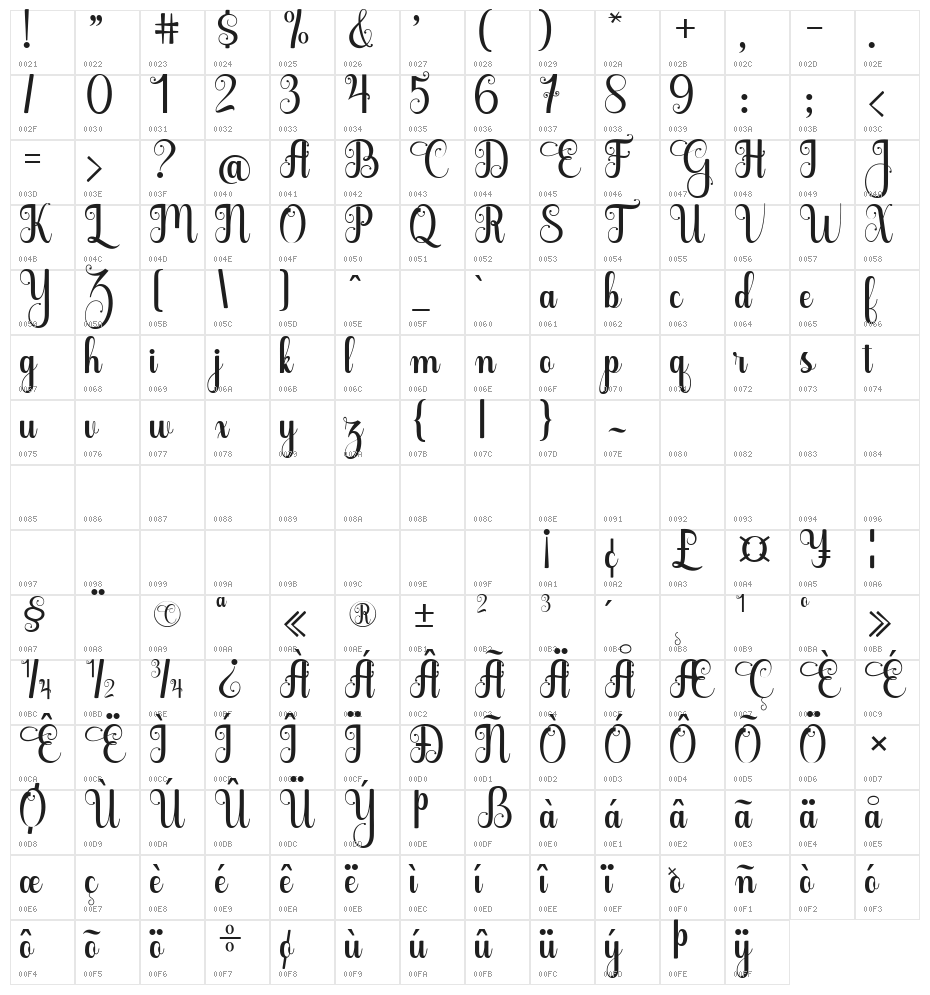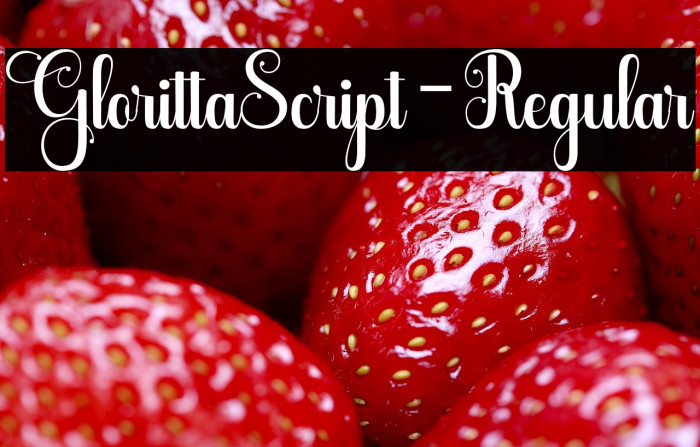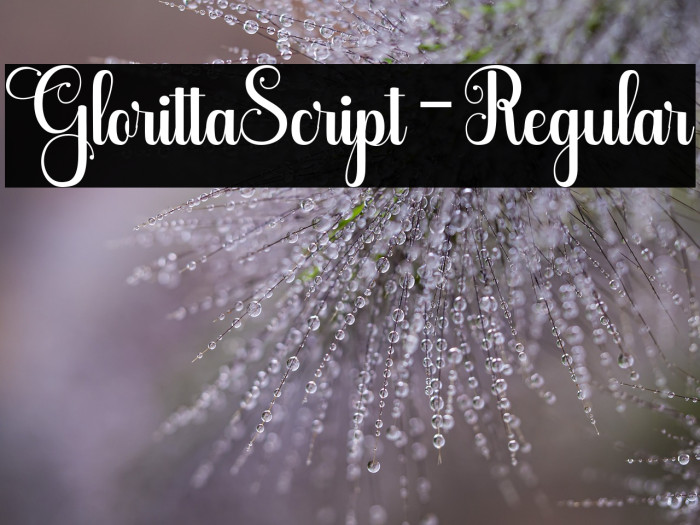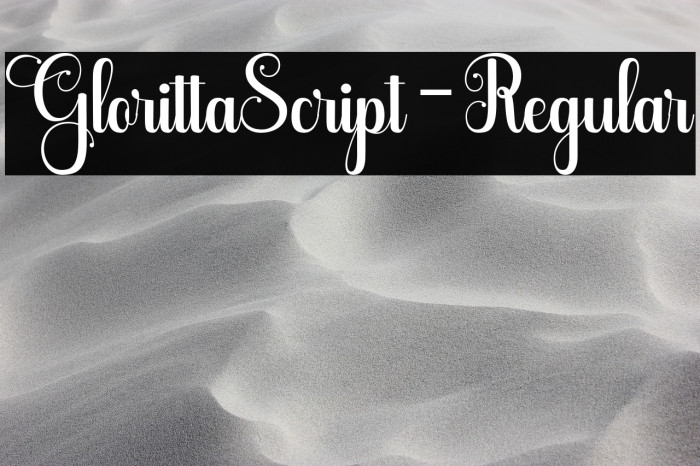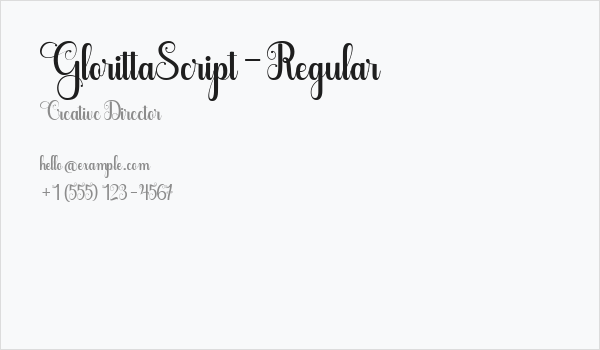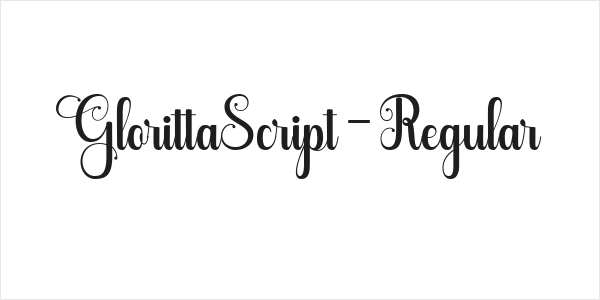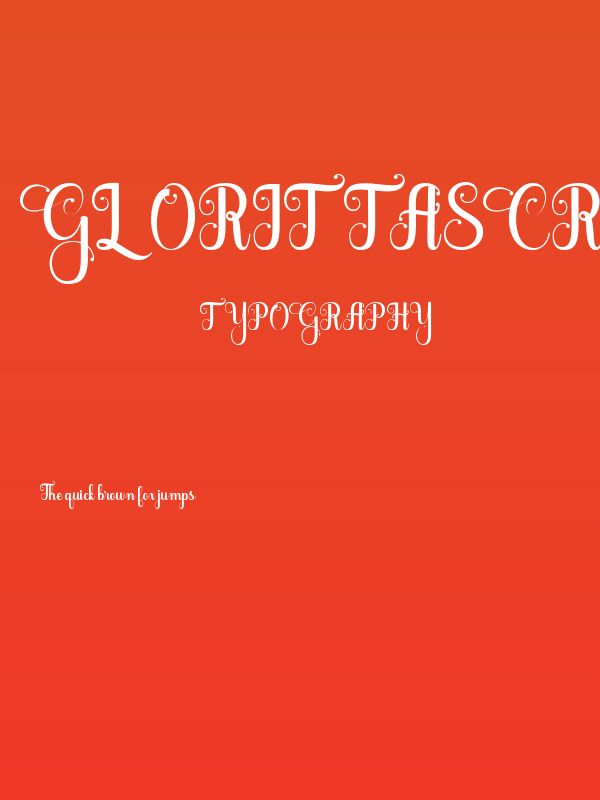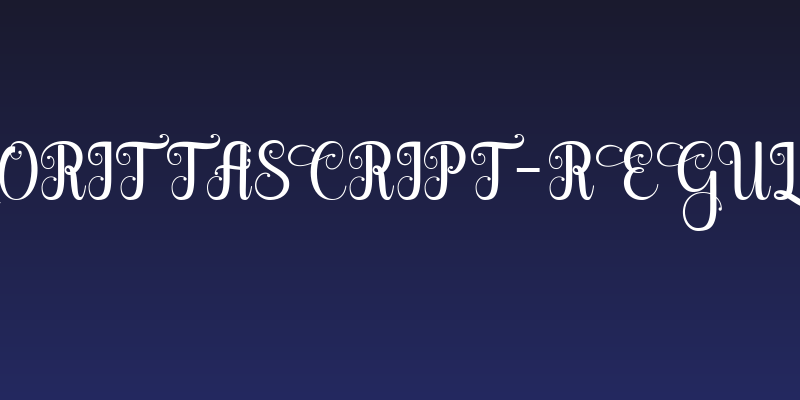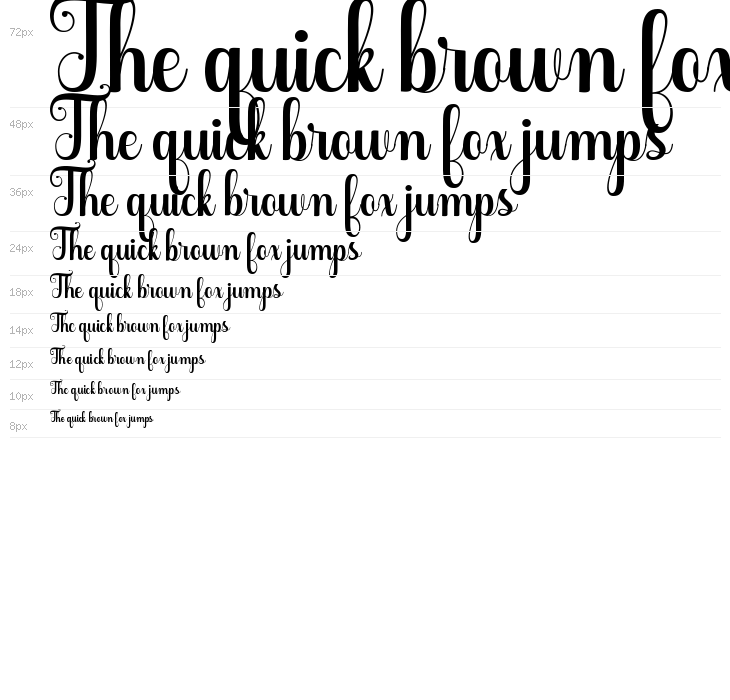
GlorittaScript-Regular Font
This font exudes elegance and sophistication with its intricate and flowing script style. The uppercase letters are adorned with elaborate swirls and loops, giving them a decorative and ornate appearance. The lowercase letters maintain a more straightforward script style, yet they still carry a sense of fluidity and grace. The numerals are uniquely styled, incorporating similar decorative elements that align with the overall aesthetic. Special characters are thoughtfully designed to complement the letterforms, ensuring a cohesive look. This font is ideal for projects that require a touch of elegance and flair, such as wedding invitations, luxury branding, or artistic posters.
| Use Case | Logos, Headlines, Invitations |
| Proposed Projects | Wedding invitations, luxury branding, artistic posters, greeting cards. |